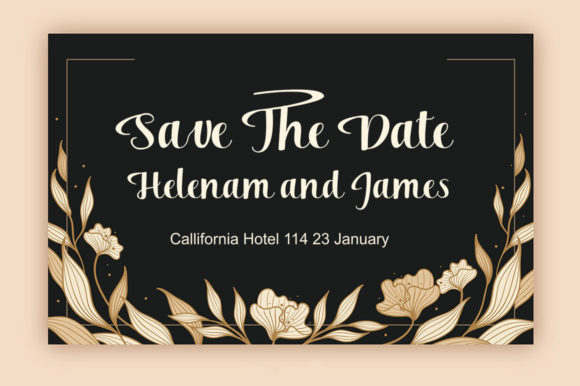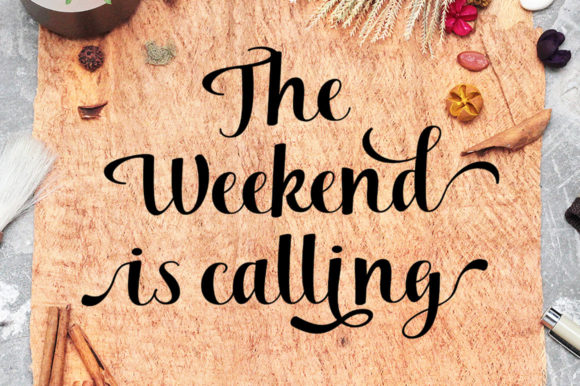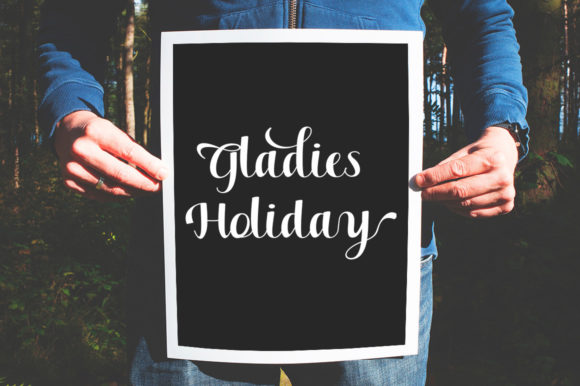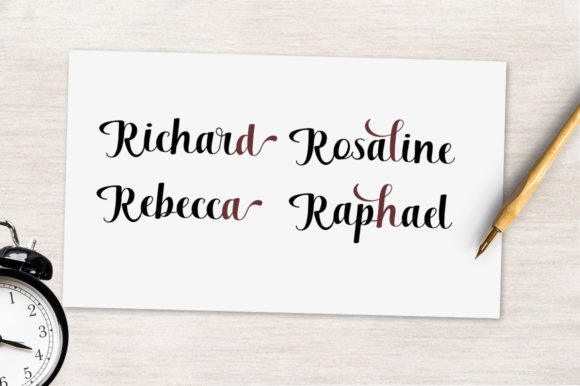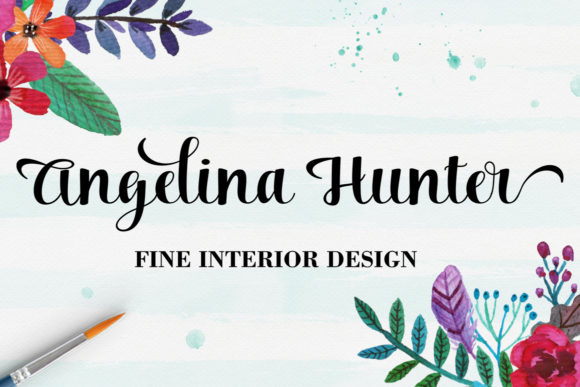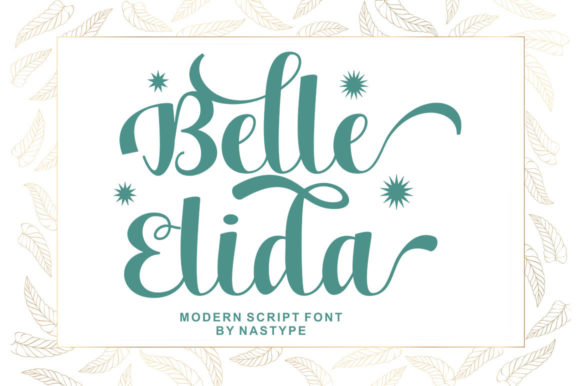
Belle Elida Font: Elevate Your Designs with Elegance and Sophistication
In the world of typography, fonts play a crucial role in conveying the tone and personality of a design. For designers and crafters seeking a script font that exudes elegance and sophistication, Belle Elida is an excellent choice. This simple yet distinct script font is perfect for adding a touch of refinement to various projects, from branding and advertising to packaging and digital media.
What Makes Belle Elida Stand Out?
Belle Elida is a beautifully crafted script font that boasts a unique and stylish appearance. Its simplicity and distinctiveness make it an ideal choice for designers who want to add a personal touch to their work without overpowering the overall design. The font’s elegant lines and curves create a sense of fluidity, making it perfect for use in a variety of contexts.
One of the standout features of Belle Elida is its PUA (Private Use Area) encoding. This means that users can access all the glyphs and swashes with ease, allowing for greater flexibility and creativity in design. With PUA encoding, designers can effortlessly navigate the font’s extensive character set, including alternates, ligatures, and ornaments, to create stunning and unique typography.
Perfect for Various Projects
Belle Elida’s versatility makes it suitable for a wide range of projects, including:
- Branding and Advertising: Use Belle Elida to create eye-catching logos, slogans, and taglines that capture the essence of your brand.
- Packaging: Add a touch of elegance to product labels, packaging, and point-of-sale displays.
- Digital Media: Enhance your website, social media, or blog with beautiful typography that reflects your brand’s personality.
- Crafting and Scrapbooking: Belle Elida is perfect for crafters and scrapbookers looking to add a personal touch to their projects.
Tips for Using Belle Elida Effectively
To get the most out of Belle Elida, consider the following tips:
- Mix and Match: Combine Belle Elida with other fonts to create visually appealing contrast and hierarchy.
- Experiment with Swashes: Take advantage of the font’s swashes and glyphs to add flair and personality to your design.
- Adjust Font Size: Play with font sizes to create emphasis and draw attention to specific elements.
Why Choose Belle Elida?
With so many fonts available, why choose Belle Elida? Here are just a few reasons:
- Unique Style: Belle Elida offers a distinctive and stylish appearance that sets it apart from other script fonts.
- Ease of Use: The font’s PUA encoding makes it easy to access and use the glyphs and swashes.
- Versatility: Belle Elida is suitable for a wide range of projects and applications.
| Author | Nastype Studio |
Belle Elida is a beautiful and elegant script font that is perfect for designers and crafters looking to add a touch of sophistication to their projects. With its PUA encoding, unique style, and versatility, Belle Elida is an excellent choice for anyone seeking a high-quality font that delivers results. So why wait? Add Belle Elida to your font collection today and experience the power of beautiful typography!